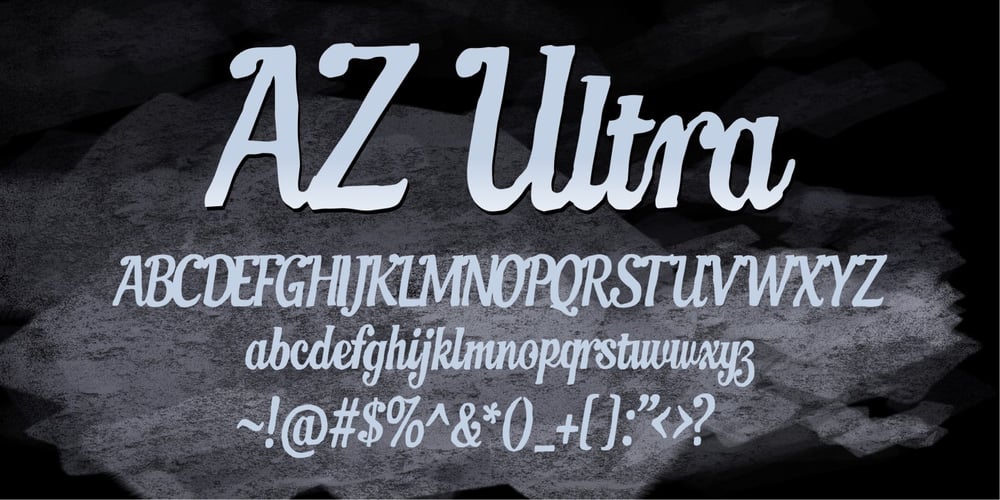
AZ Ultra
AZ Ultra font
AZ Ultra Font Family was designed by published by Artist of Design. AZ Ultra contains 1 styles and family package options. AZ Ultra was inspired from a need to develop an easily changable worn italic headline. This font was designed for use as a display headline or sub headline.